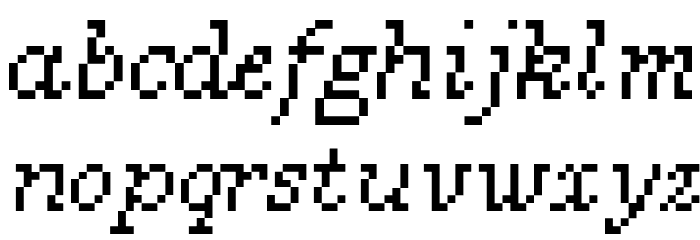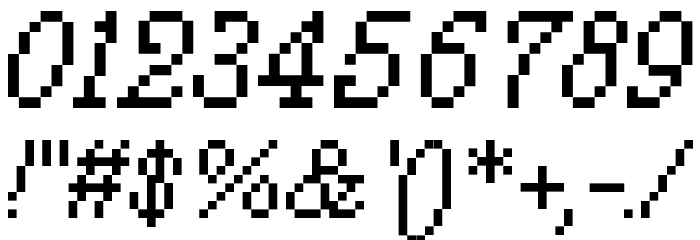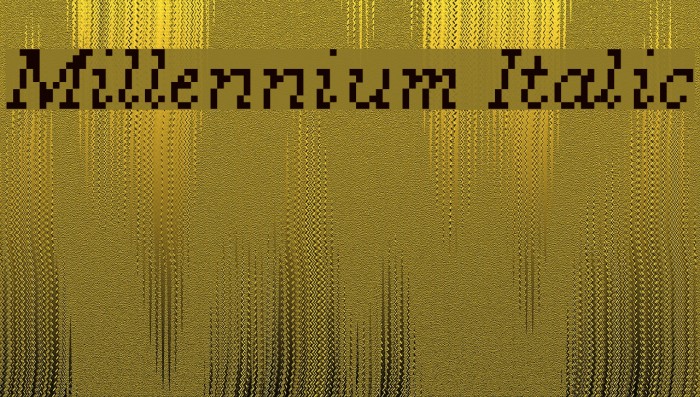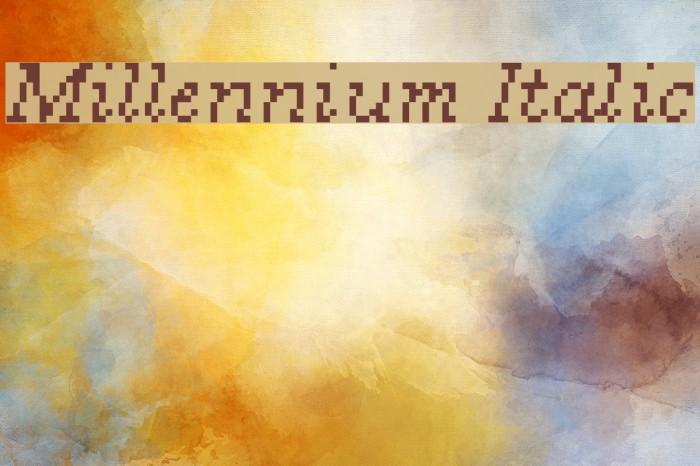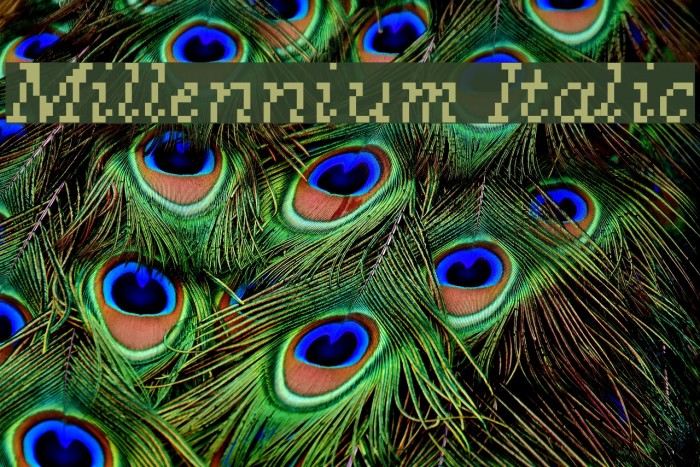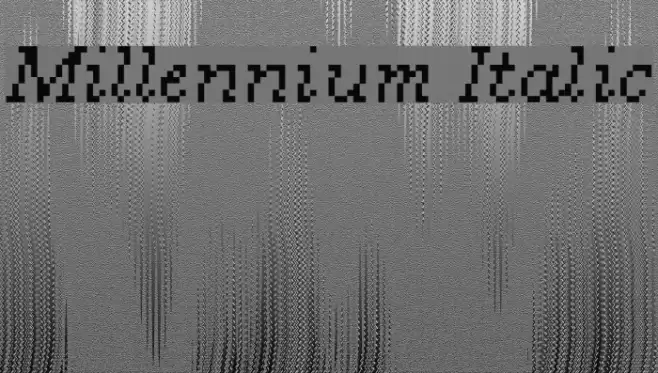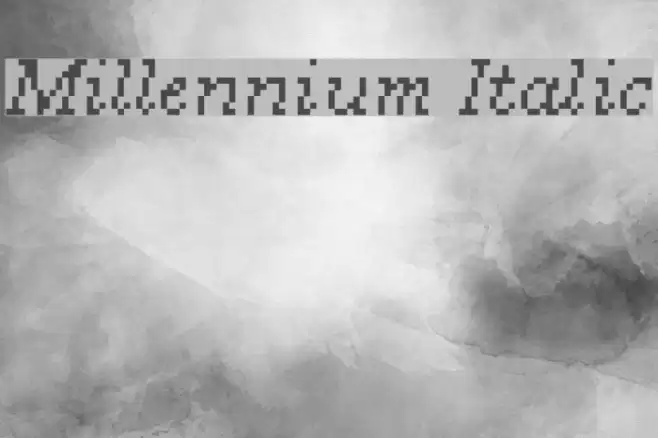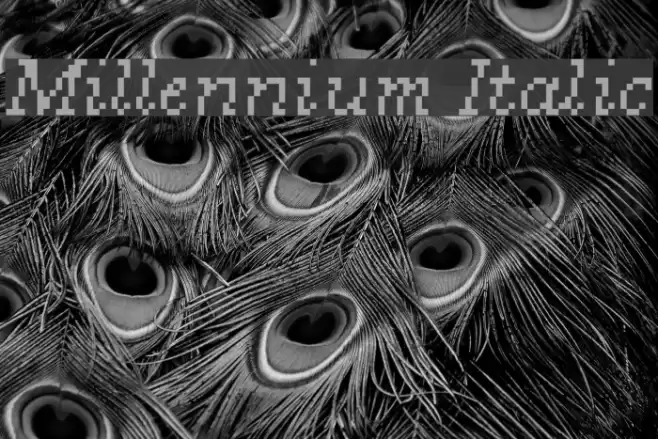
Millennium Italic Font
This font features a distinctive italic style with a pixelated, digital appearance. The characters are composed of small, square blocks, giving it a retro, arcade-like feel. The uppercase letters are bold and prominent, while the lowercase letters maintain a consistent style with slight variations in height and width. Numbers and special characters follow the same pixelated design, ensuring uniformity across all glyphs. The overall look is reminiscent of early computer graphics, making it ideal for projects that aim to evoke nostalgia or a tech-inspired aesthetic.
A pixelated, italic font with a retro, digital style.
- Proposed Projects: Ideal for retro video game designs, tech-themed posters, digital art projects, and nostalgic branding.
- Overall Style: Retro, Digital